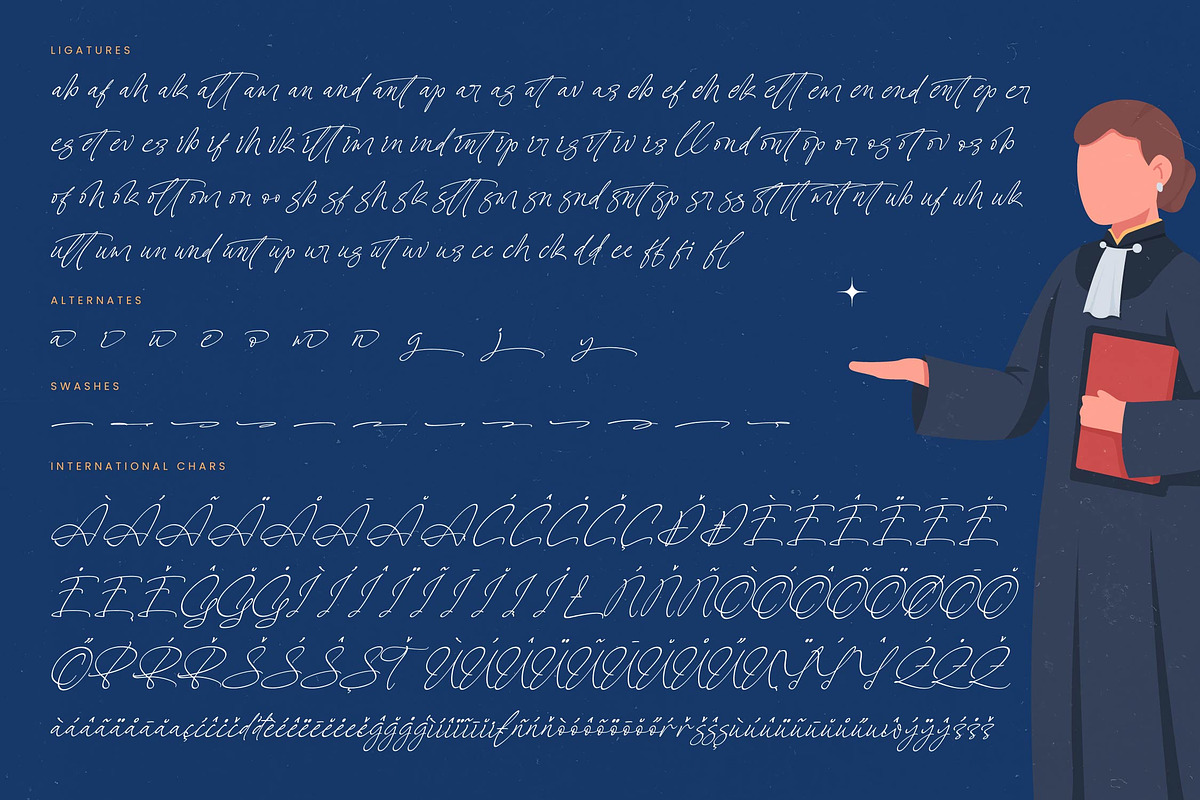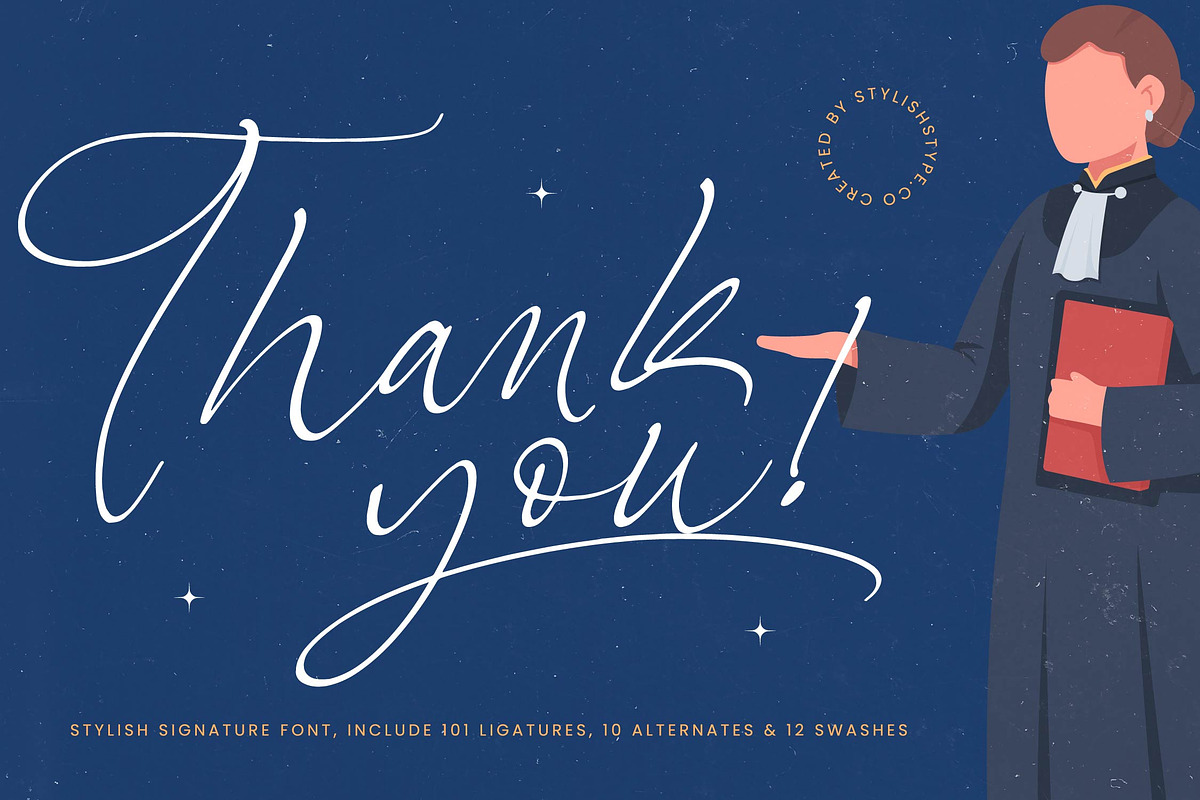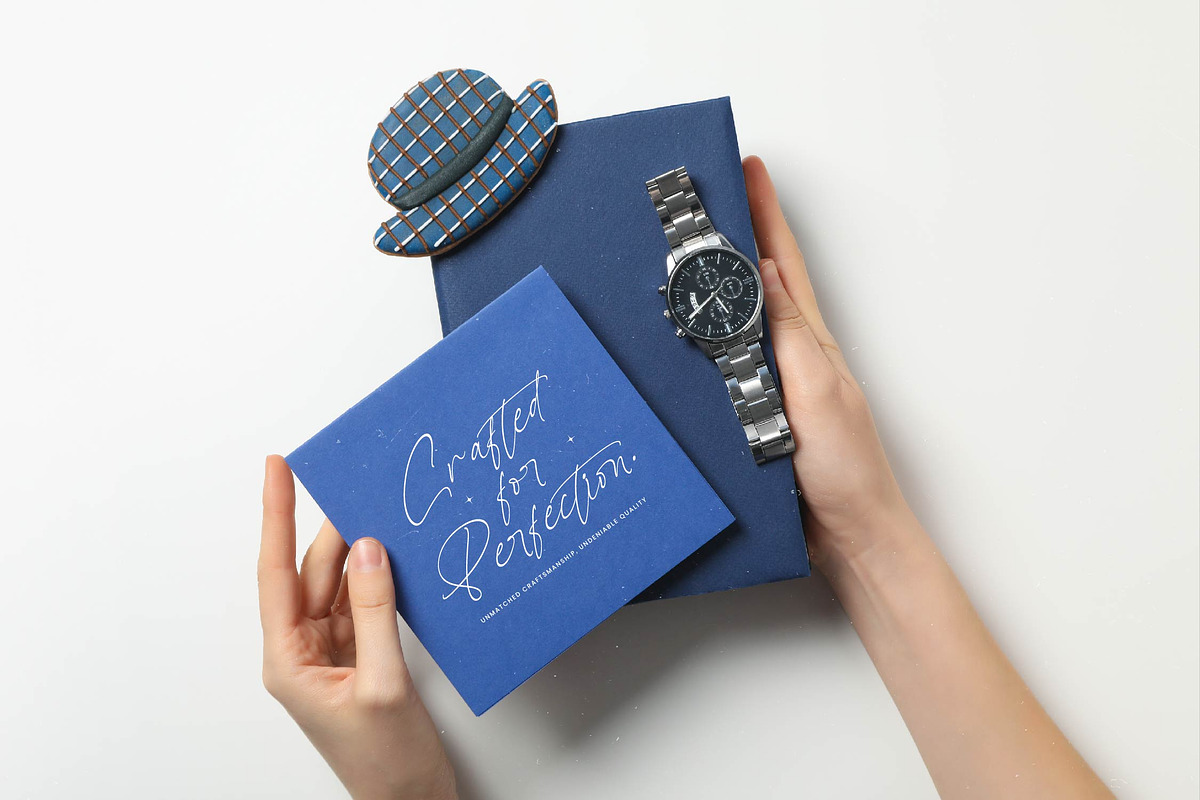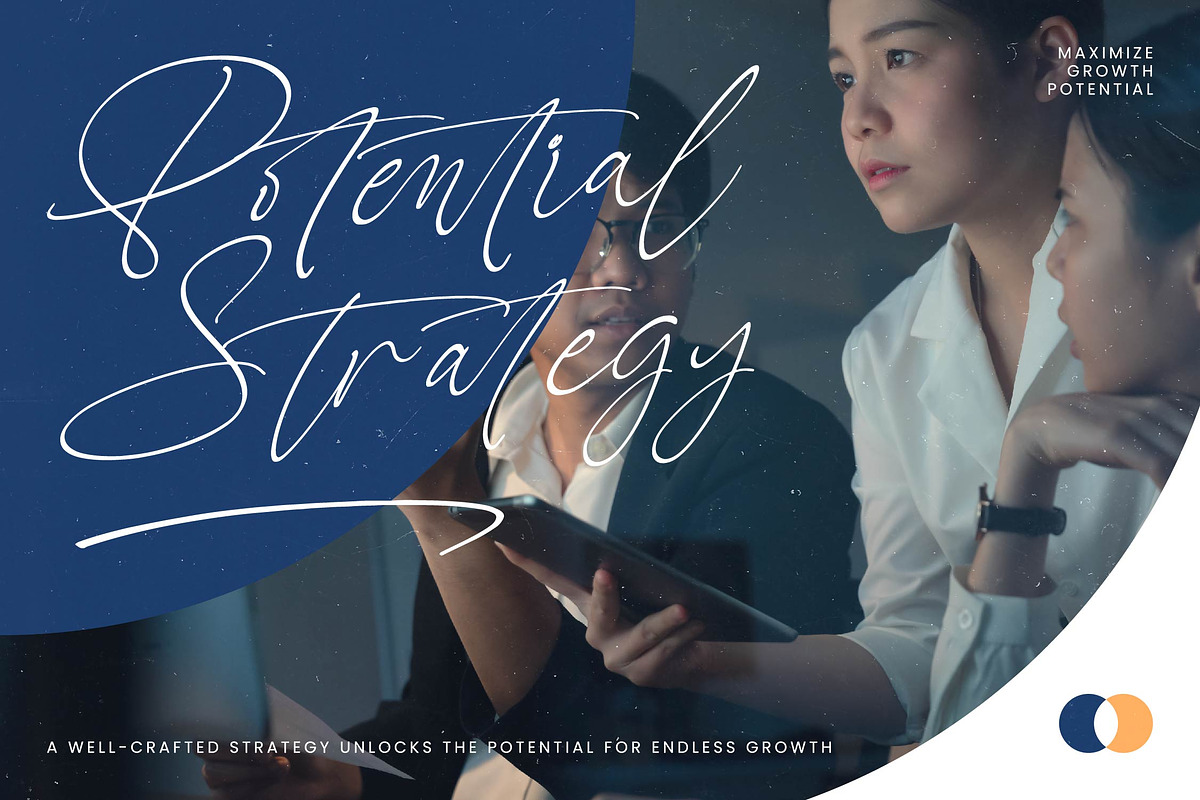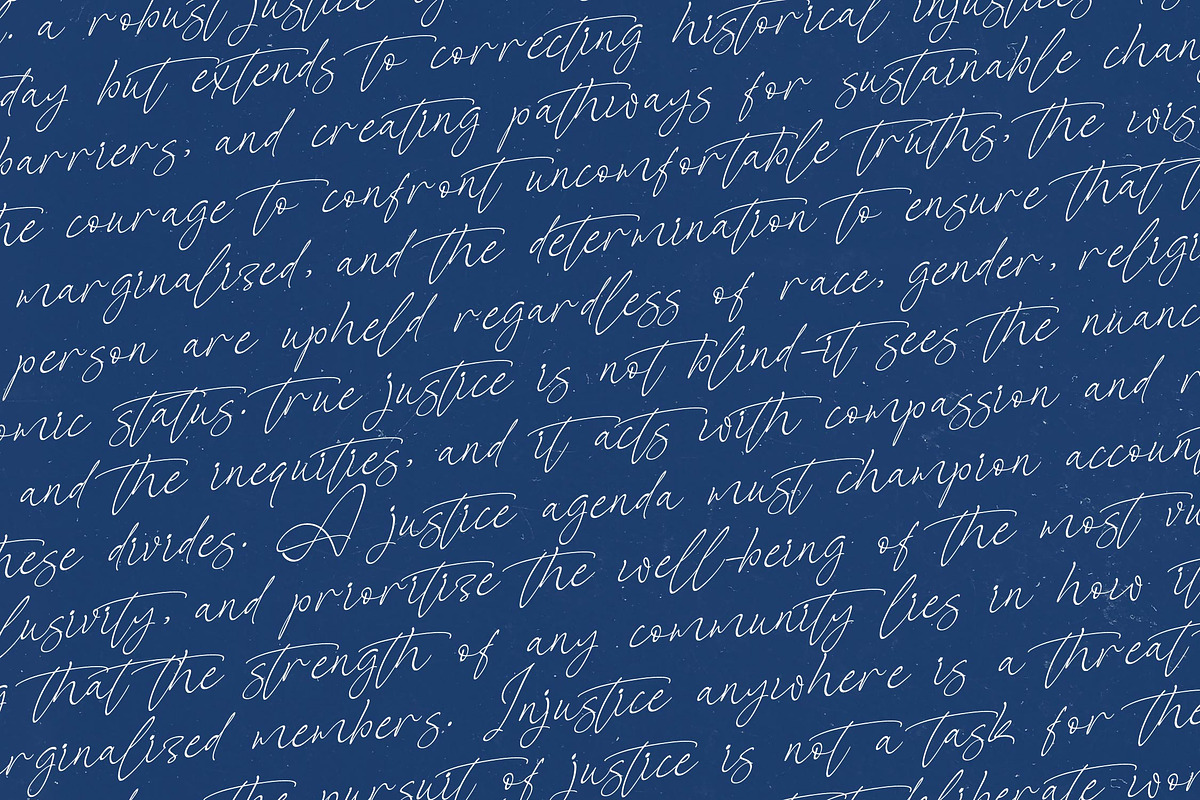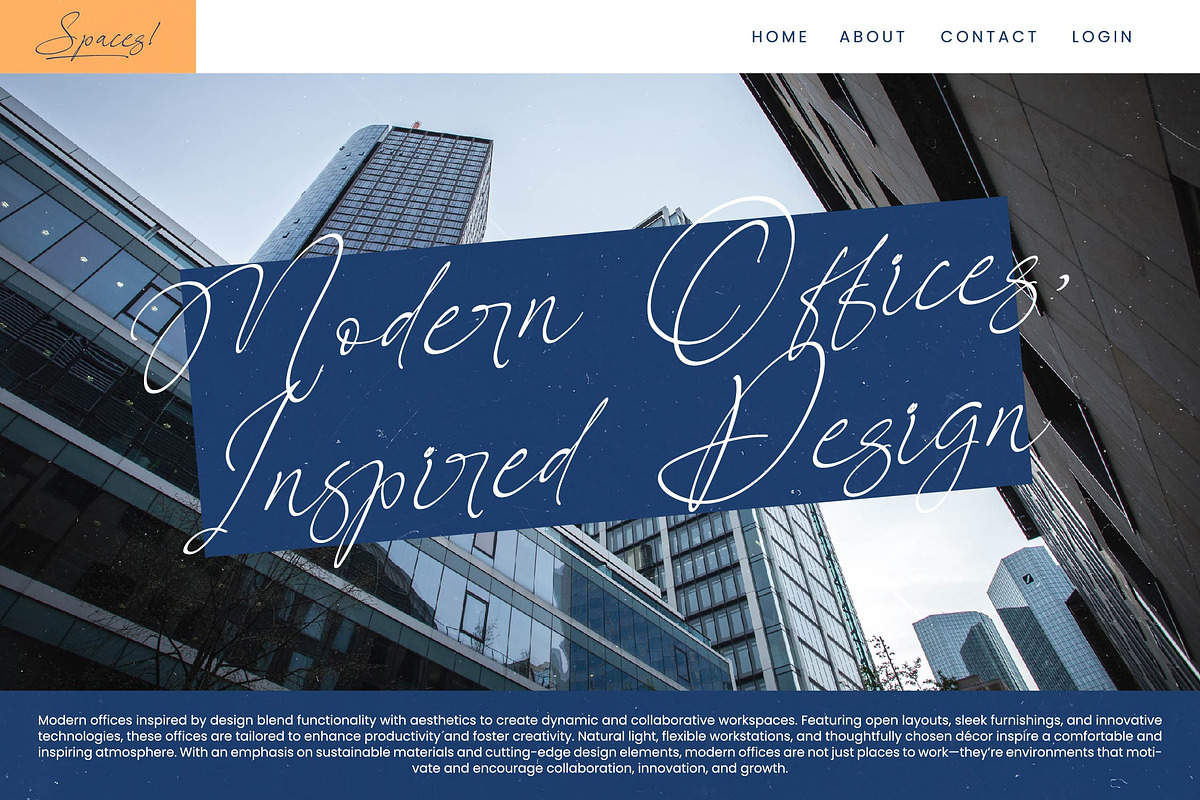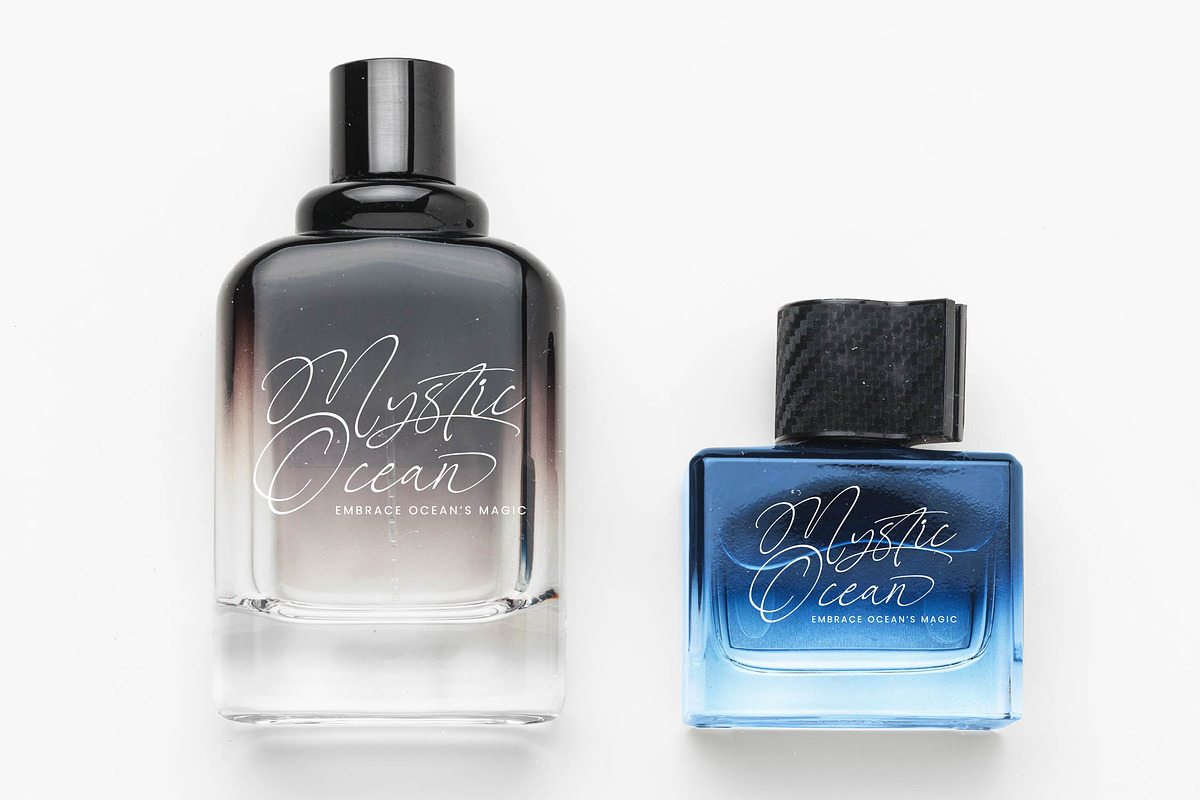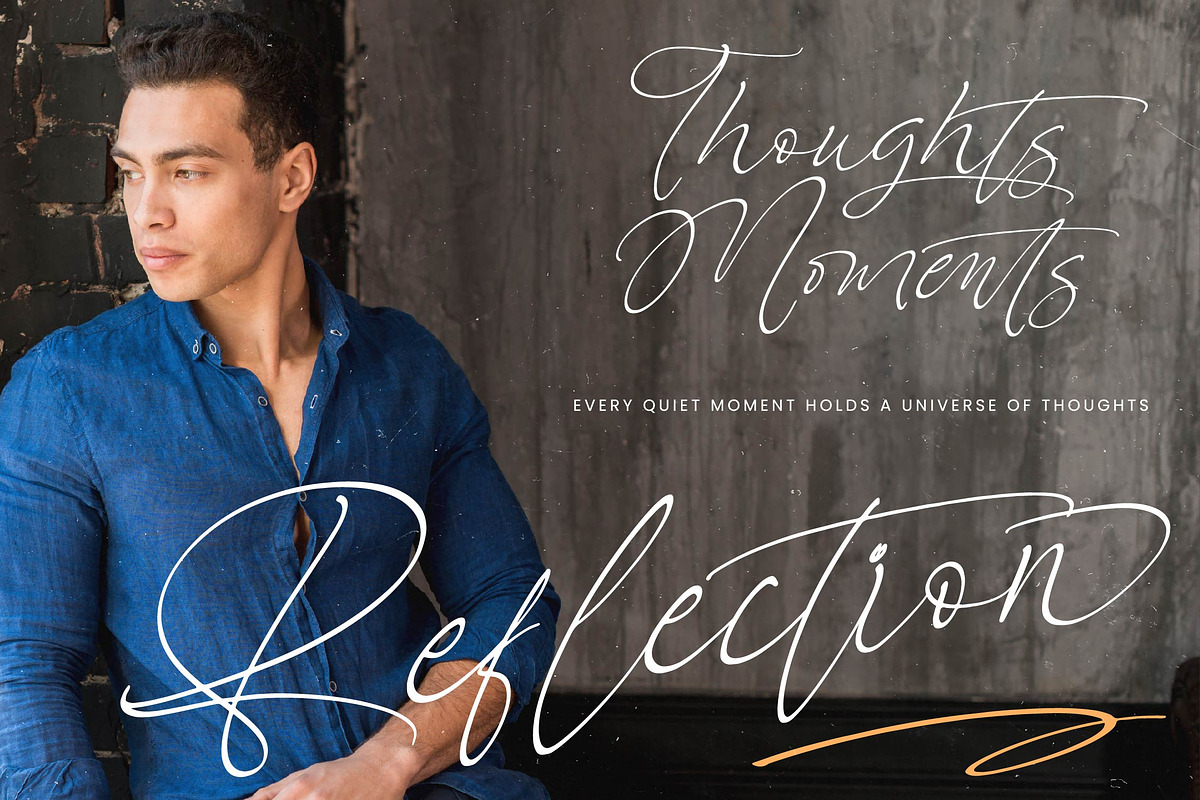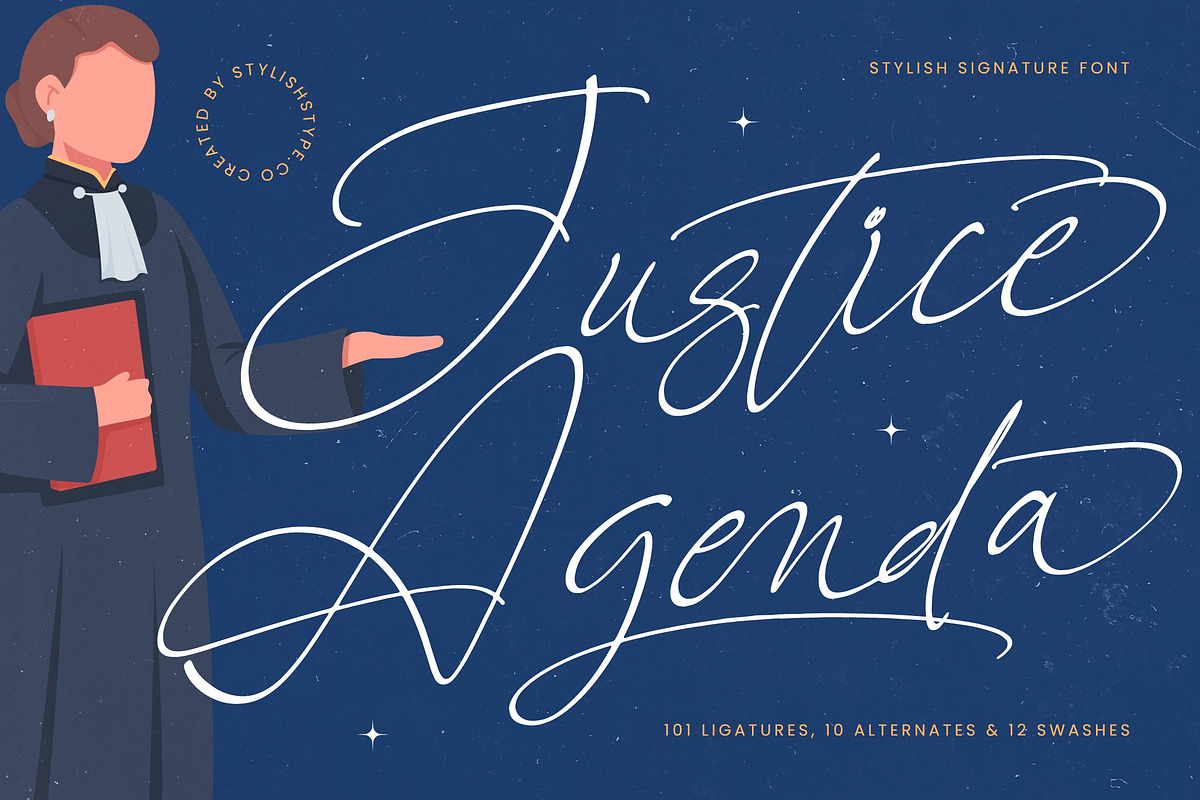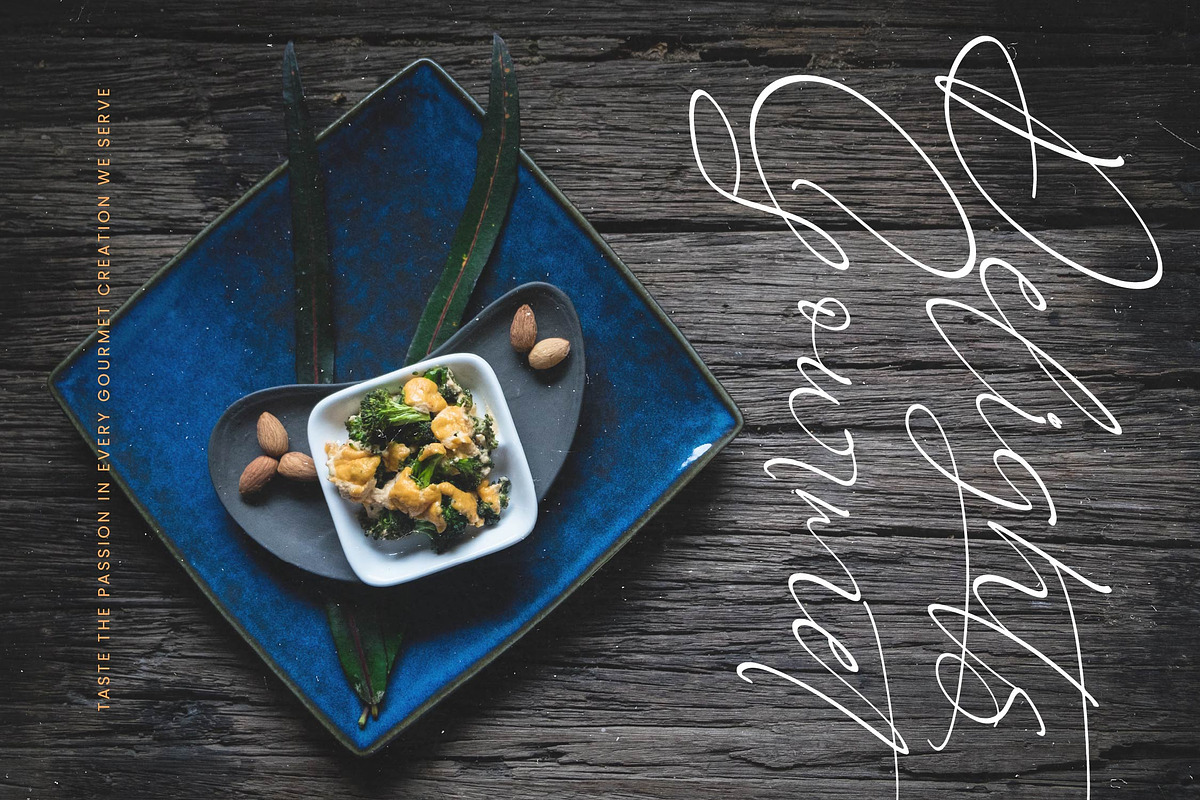
Justice Agenda Stylish Signature
Justice Agenda - Stylish Signature Font , from Stylishtype.Co , Suitable for any projects such as: logos, branding projects, homeware designs, product packaging, mugs, quotes, posters, shopping bags, t-shirts, book covers, name card, invitation cards, greeting cards, label, photography, watermark, special events, and all your other luxury and beautiful projects that need a Luxury Script taste.
- 101 Ligature 10 Alternates & 12 Swashes